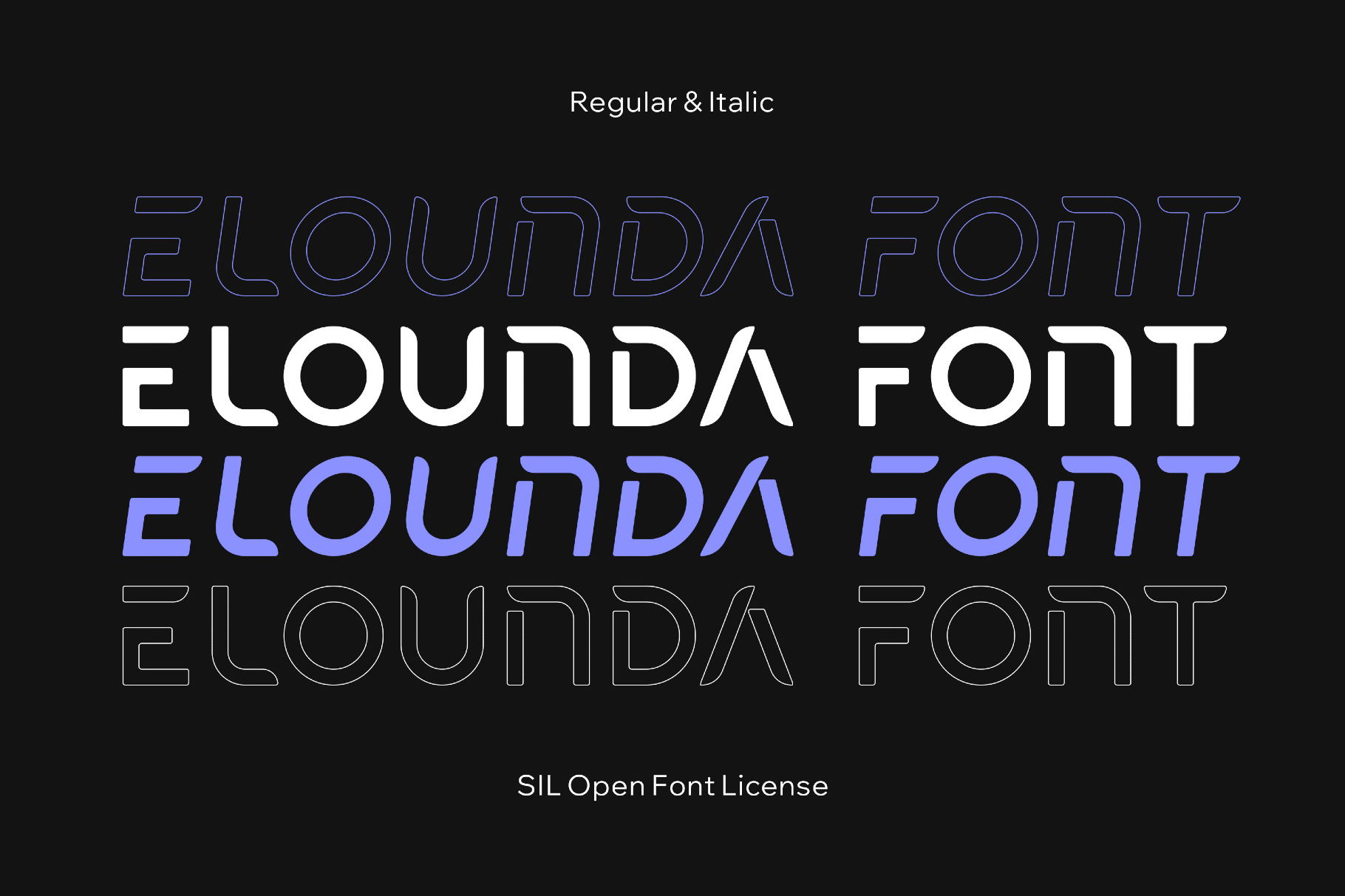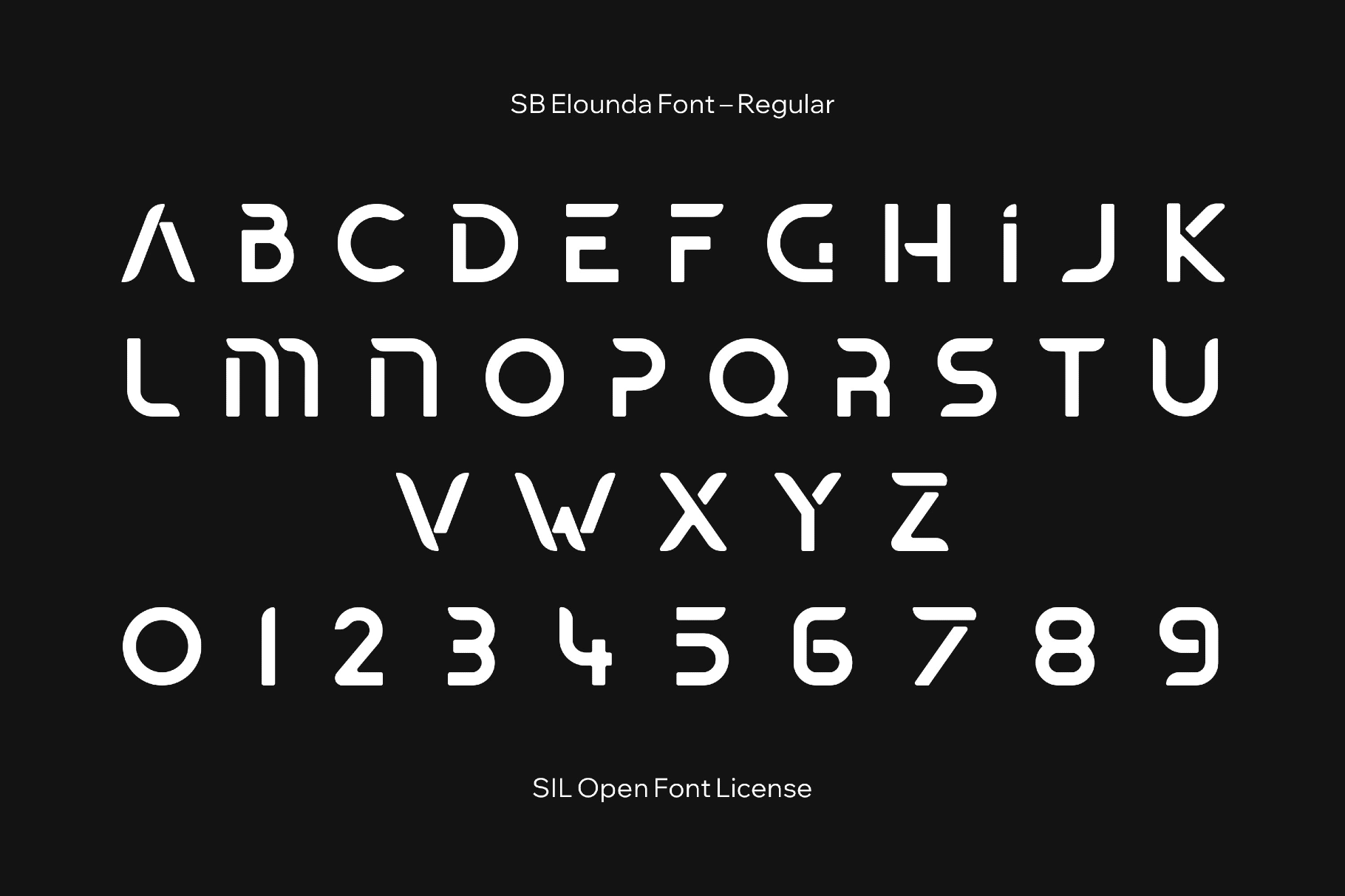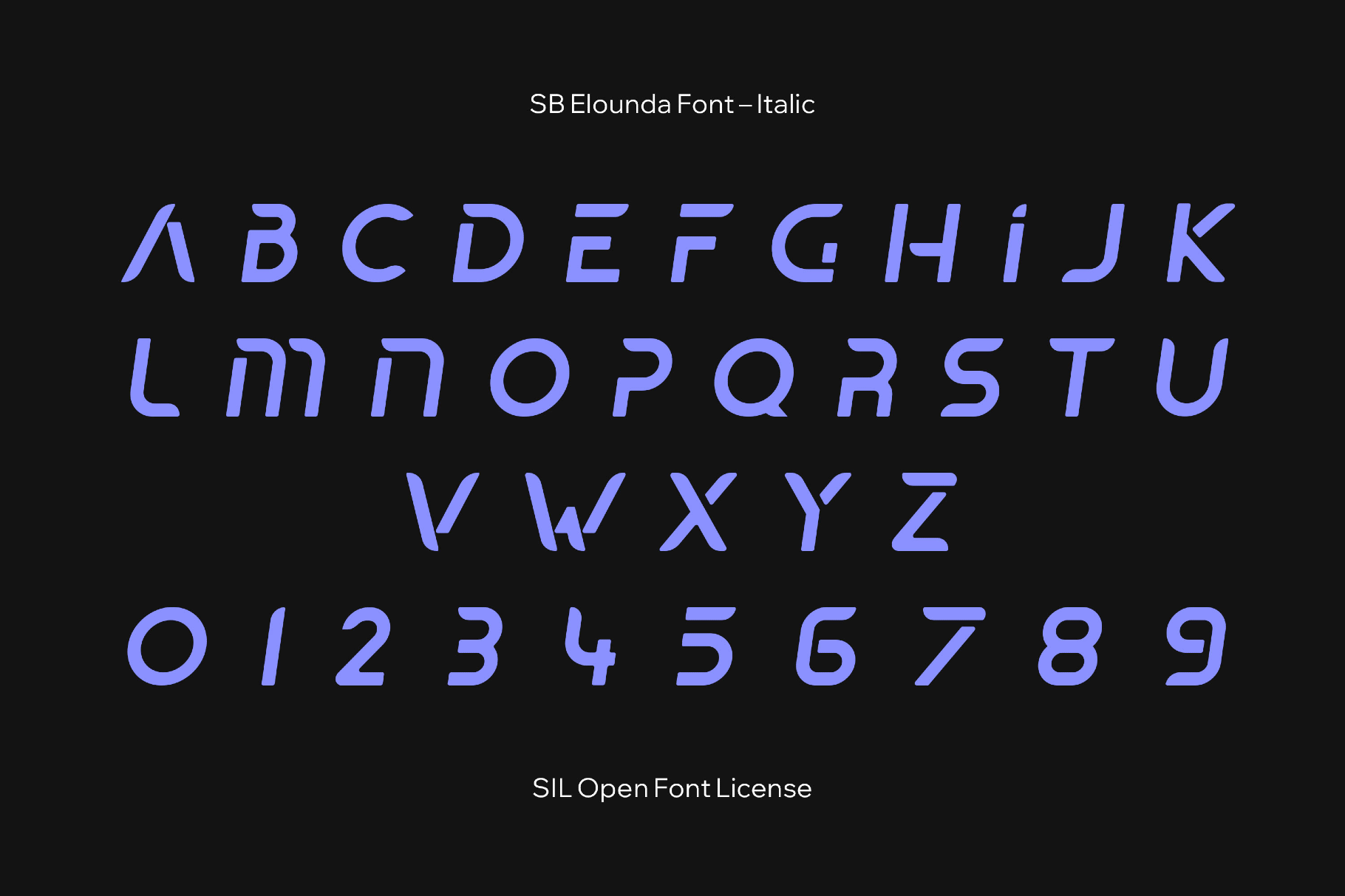
SB Elounda Font
If you need something made in a spaceship, you have SB Elounda. It comes with the clean severity of mid-century geometric lettering and speculative film graphics, generous curves, a gently irregular rhythm, a reduced set of shapes, and even strokes. It looks pulled straight from a 1970s sci-fi film set — the kind where everything is geometric and suspiciously well-organized.
The font fits logos, branding systems, poster titles, menu design, packaging, editorial covers, book jackets, postcard sets, and storefront signage.